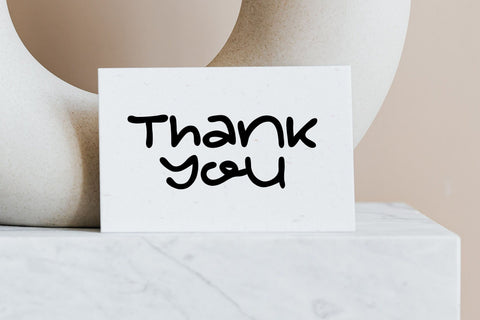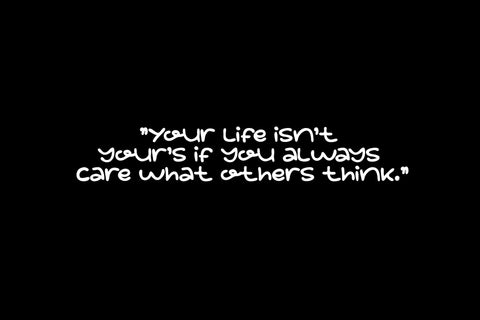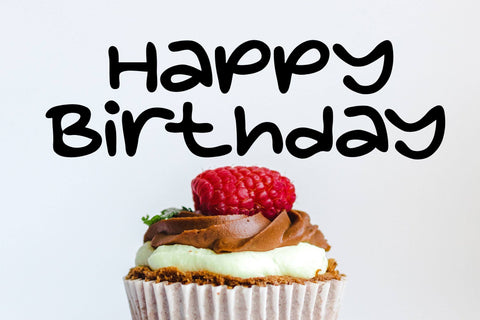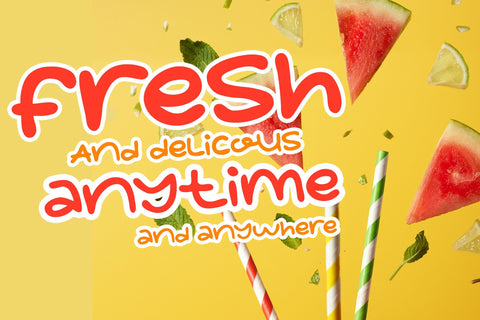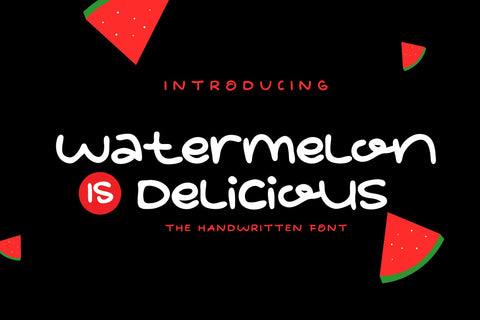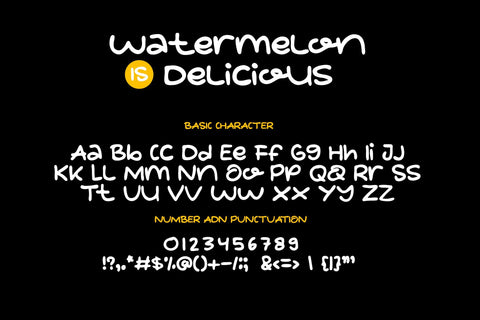
watermelon is delicious
watermelon is delicious is a cute and unique handwritten font. Very high potential to take your design ideas to the highest level. has a cute impression and is suitable for making cute greeting cards, social media posts, cute poster designs and many other ideas